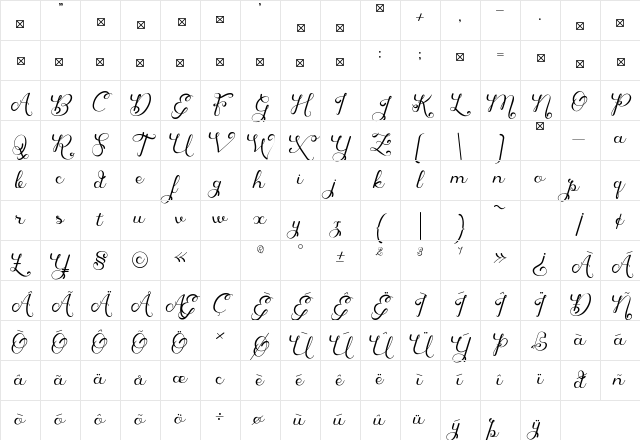
Andini Regular
Foundry: Yunita Ecy
Designer: Yesie Erma Yunita
Design Context for Andini
Andini is a composed and adaptable typeface that performs quietly and consistently across a wide range of design contexts.